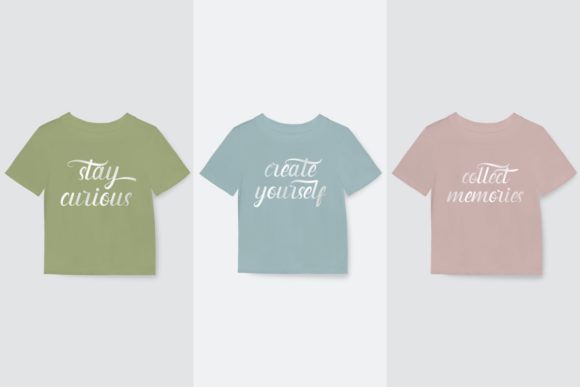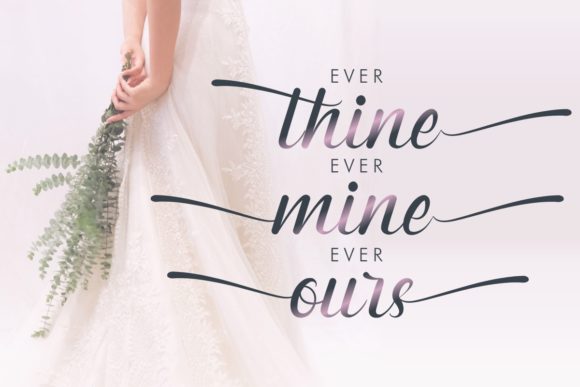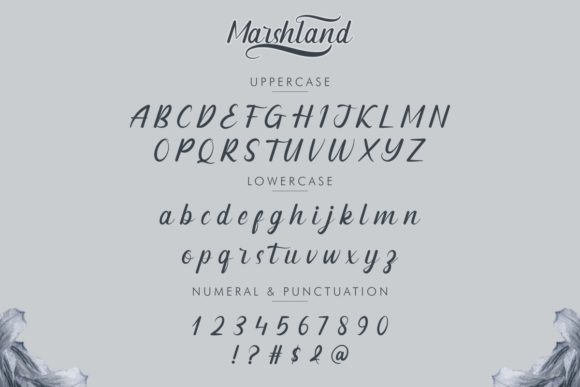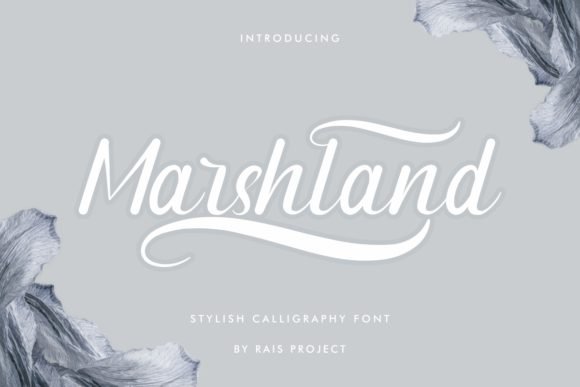
Introduction to Marshland Font
Marshland is a delicate and elegant handwritten font.
Its distinct and well rounded letters make this font a masterpiece This font is PUA encoded which means you can access all of the glyphs and swashes with ease.
Key Features of Marshland Font